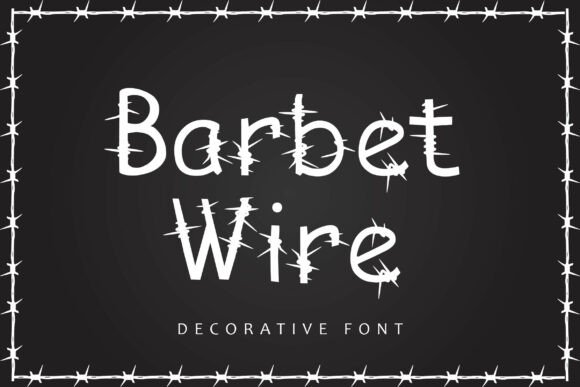
Add a Sharp, Industrial Edge to Your Designs with Barbed Wire Font
Are you looking for a font that can add a raw, rebellious aesthetic to your designs? Look no further than Barbed Wire Font, a gritty decorative font that captures the essence of a sharp, industrial edge. This font is perfect for designers and crafters who want to create bold, eye-catching designs that command attention.
The Unique Design of Barbed Wire Font
What sets Barbed Wire Font apart from other fonts is its unique design. Every letterform is “wrapped” in detailed barbed wire motifs, creating a high-tension look that is both striking and uncompromising. The intricate details of the barbed wire design give the font a rugged, industrial feel that is perfect for a variety of design applications.
Ideal Use Cases for Barbed Wire Font
Barbed Wire Font is a versatile font that can be used in a variety of design applications. Here are some ideal use cases for the font:
- Branding: Heavy metal or punk rock band identities and music festival graphics. The font’s raw, rebellious aesthetic makes it perfect for creating bold, eye-catching logos and branding materials.
- Streetwear: High-impact chest graphics for hoodies and t-shirts. The font’s gritty, industrial design makes it perfect for creating bold, statement-making graphics for streetwear.
- Signage: Warning-themed decor or industrial-style interior signage. The font’s high-tension look makes it perfect for creating eye-catching signage that commands attention.
- Editorial: High-tension headlines for urban or alternative lifestyle magazines. The font’s unique design makes it perfect for creating bold, eye-catching headlines that grab the reader’s attention.
Designing with Barbed Wire Font
When designing with Barbed Wire Font, the possibilities are endless. Here are some tips for getting the most out of the font:
- Experiment with different colors: The font’s bold, industrial design looks great in a variety of colors, from bold and bright to dark and muted.
- Combine with other design elements: The font’s unique design makes it perfect for combining with other design elements, such as images or textures, to create bold, eye-catching designs.
- Use for headlines and titles: The font’s high-tension look makes it perfect for use as headlines and titles, where it can add a bold, eye-catching touch to your designs.
Why Choose Barbed Wire Font?
So why choose Barbed Wire Font for your design projects? Here are just a few reasons:
- Unique design: The font’s unique design sets it apart from other fonts, making it perfect for designers and crafters who want to create bold, eye-catching designs.
- Versatility: The font’s versatility makes it perfect for a variety of design applications, from branding and streetwear to signage and editorial.
- High-impact: The font’s high-tension look makes it perfect for creating bold, eye-catching designs that command attention.
In conclusion, Barbed Wire Font is a gritty decorative font that adds a sharp, industrial edge to any design. With its unique design, versatility, and high-impact look, it’s perfect for designers and crafters who want to create bold, eye-catching designs that command attention. Whether you’re designing for a defiant underground movement or a bold architectural concept, Barbed Wire Font provides a visual barrier that commands attention.